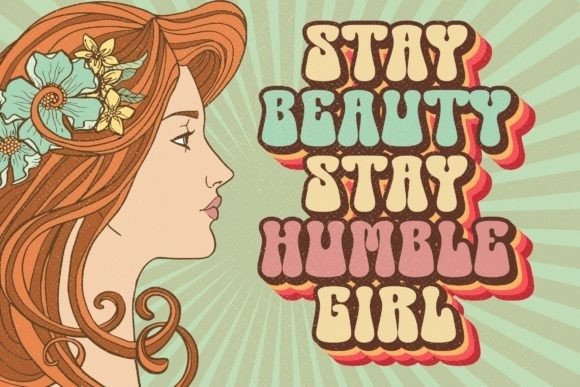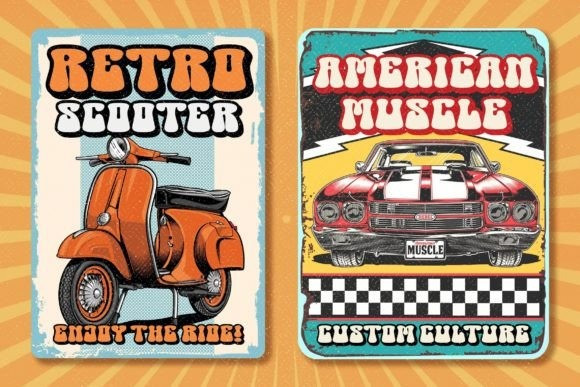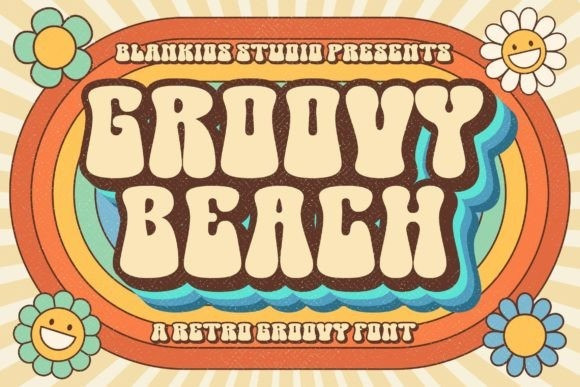
Groovy Beach Font
Groovy Beach Display Font is a retro groovy font, inspired by retro bold typography. This font is perfect for a design that makes it more attractive and playful. Groovy Beach is suitable for book covers, posters, packaging, merchandise, logotype, and much more.